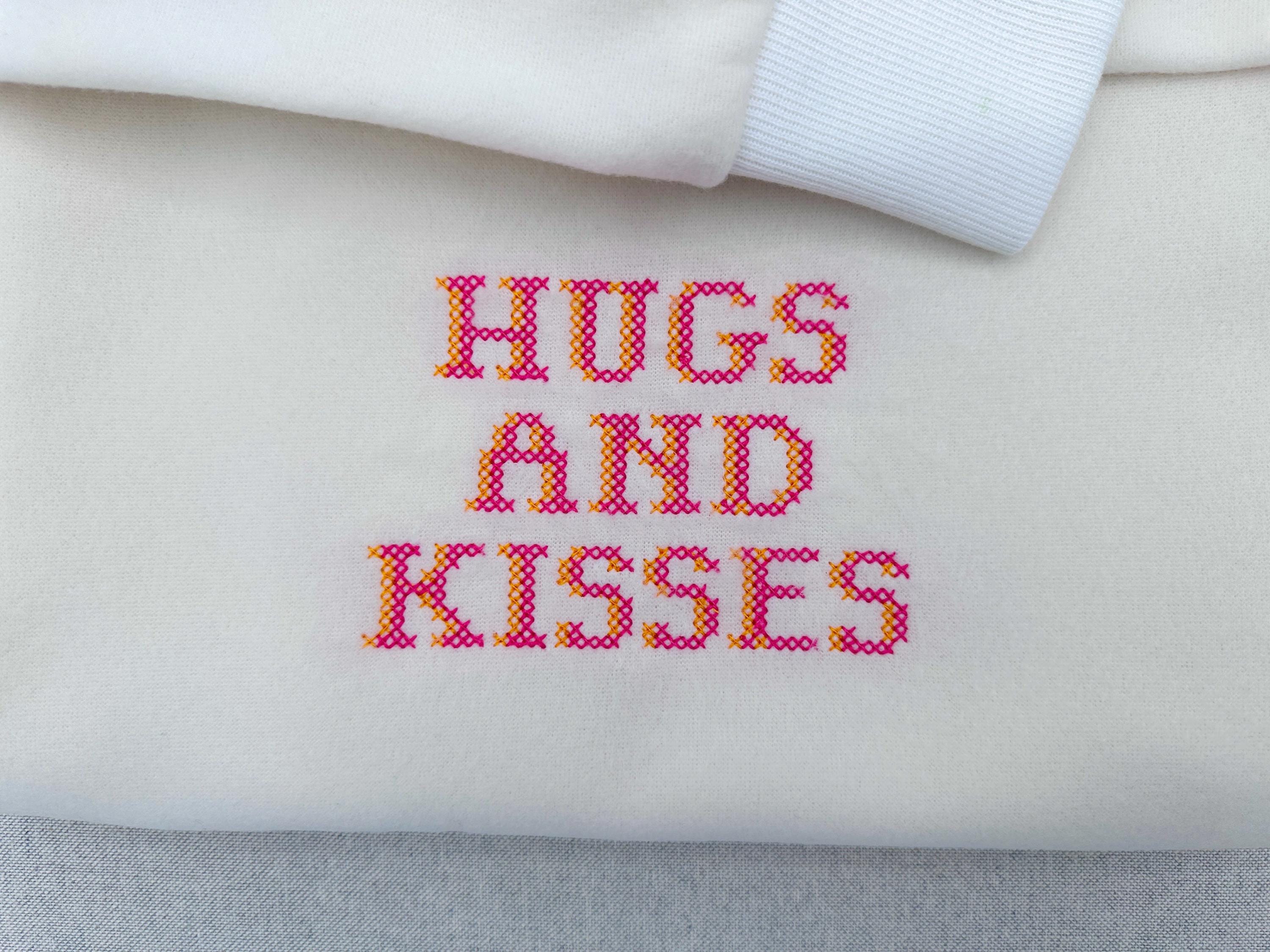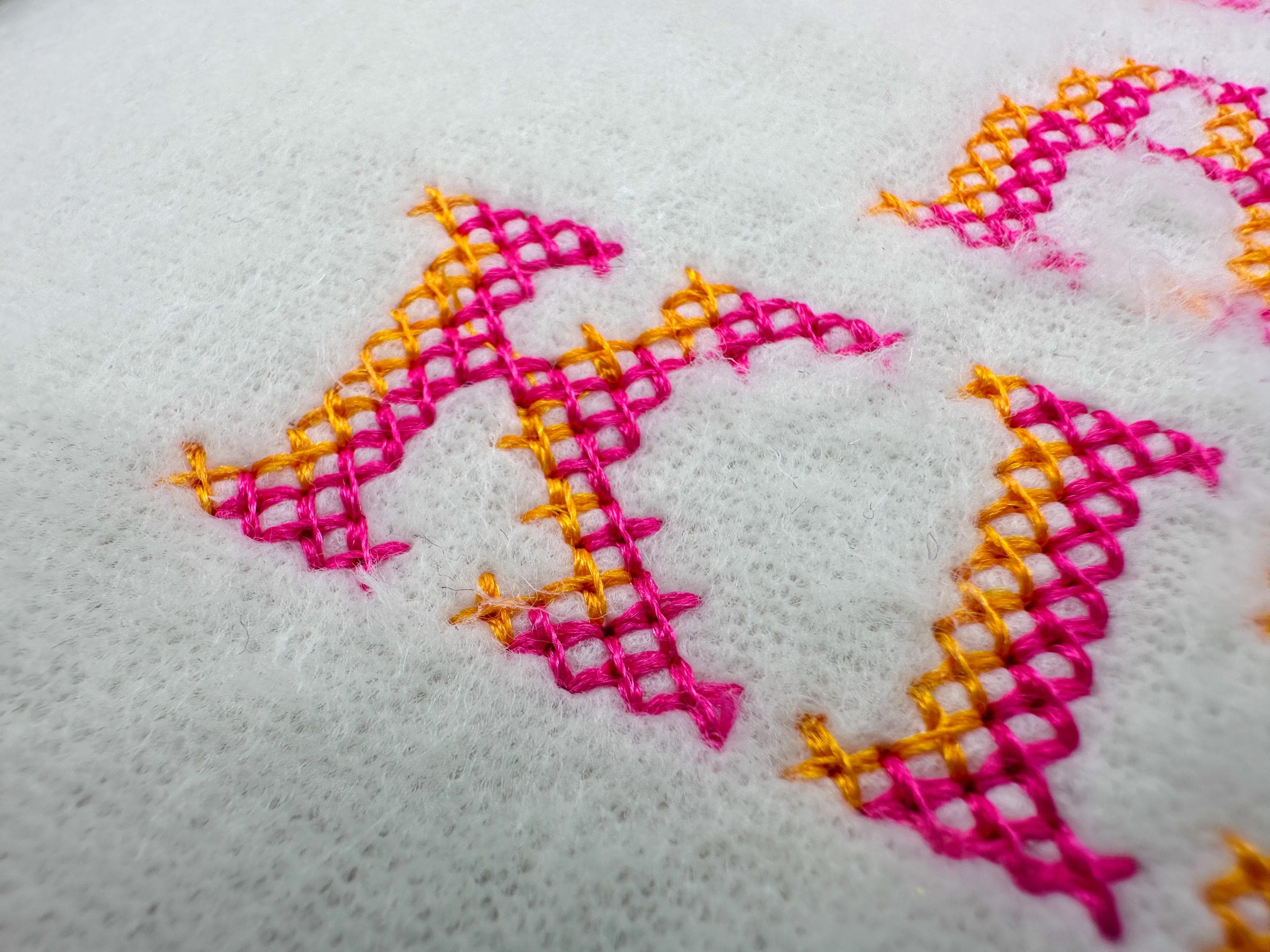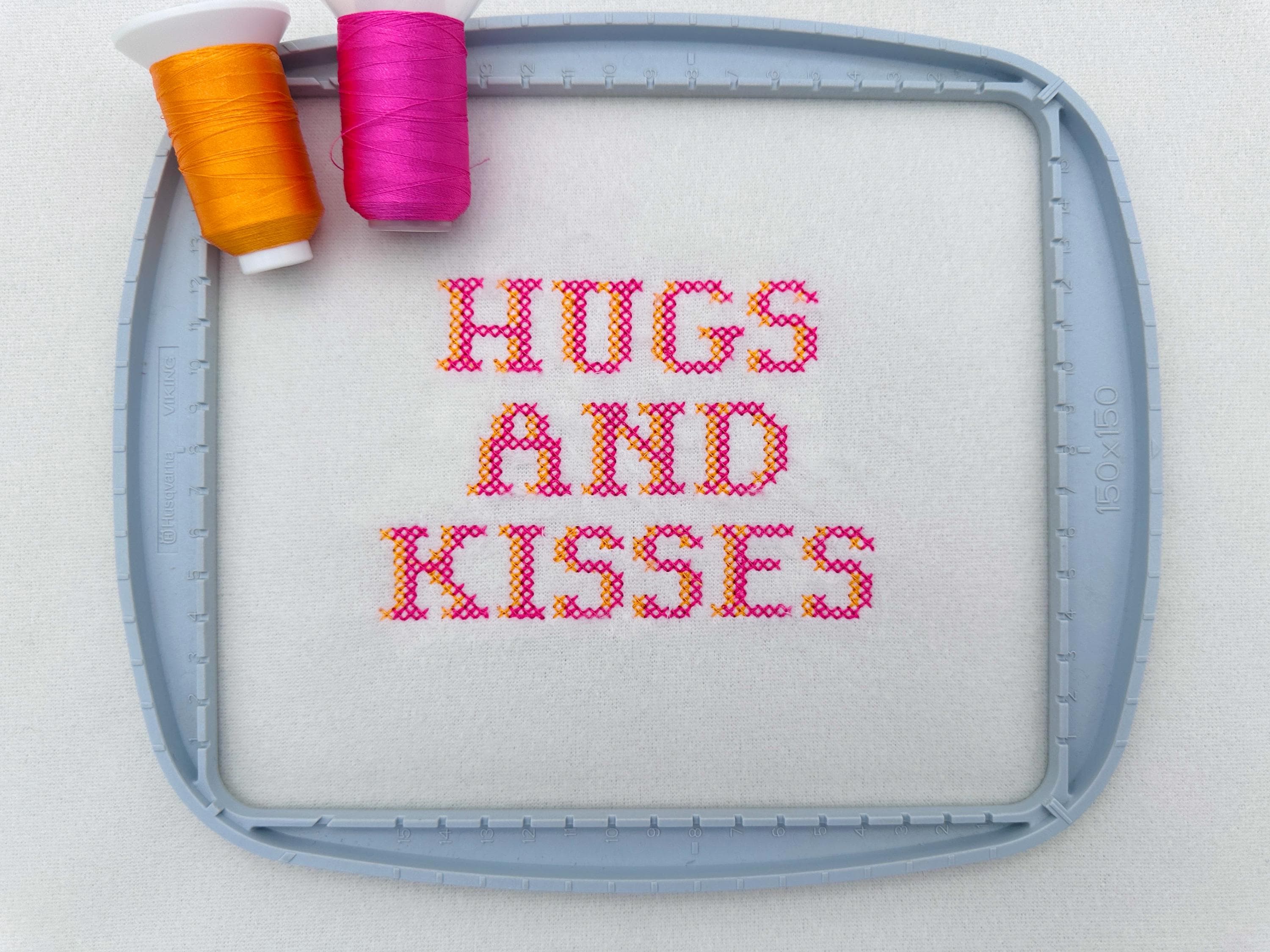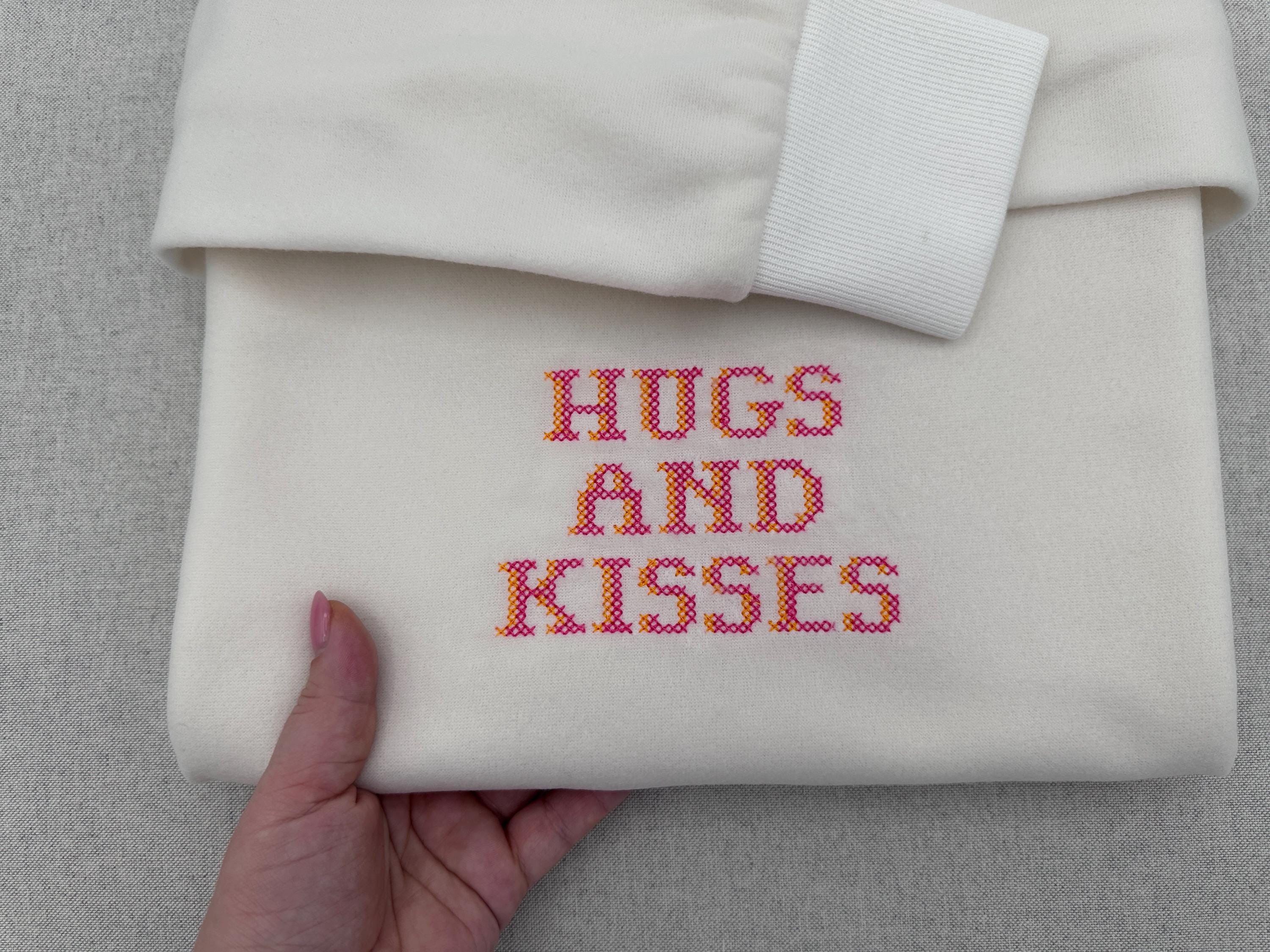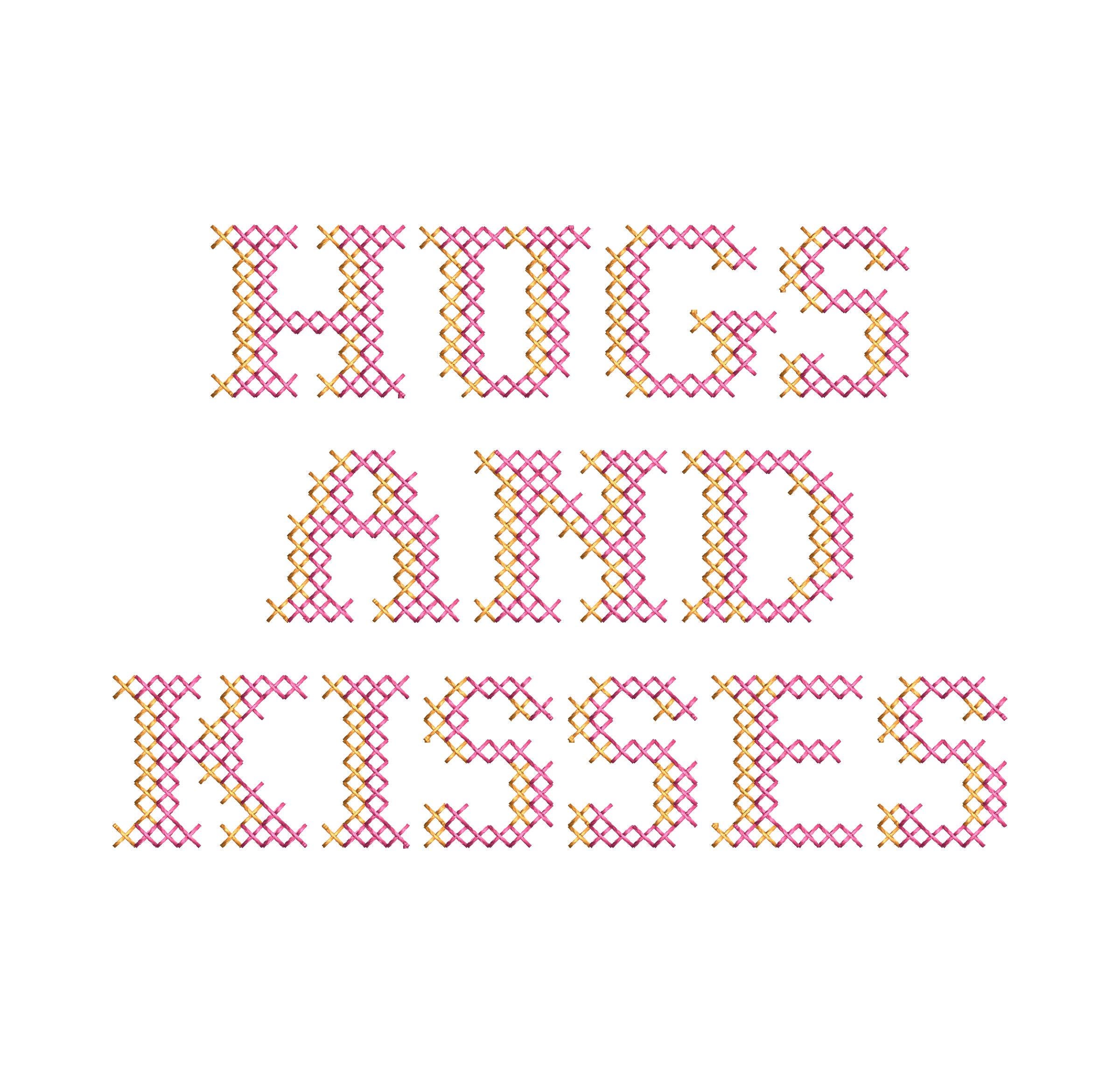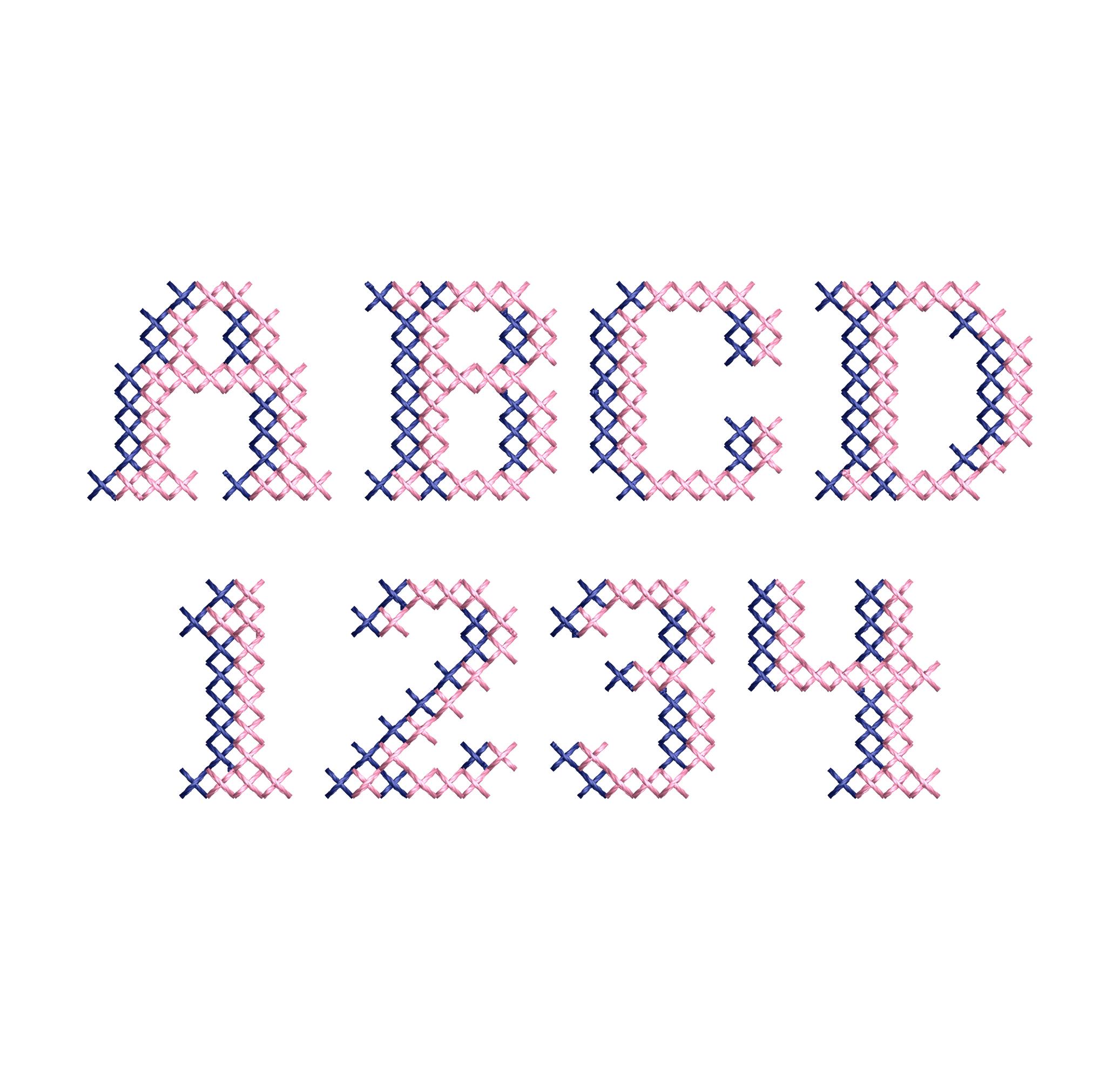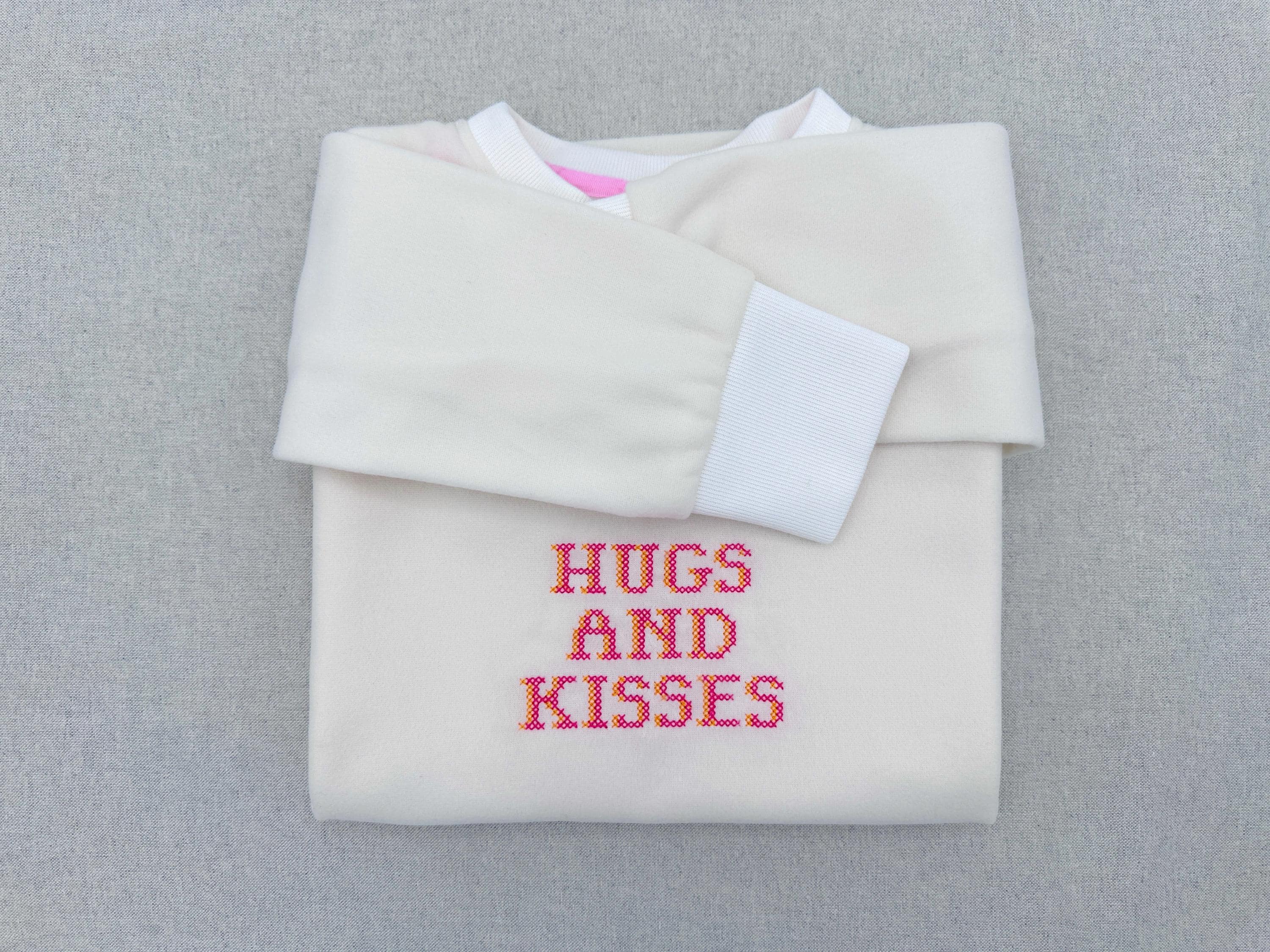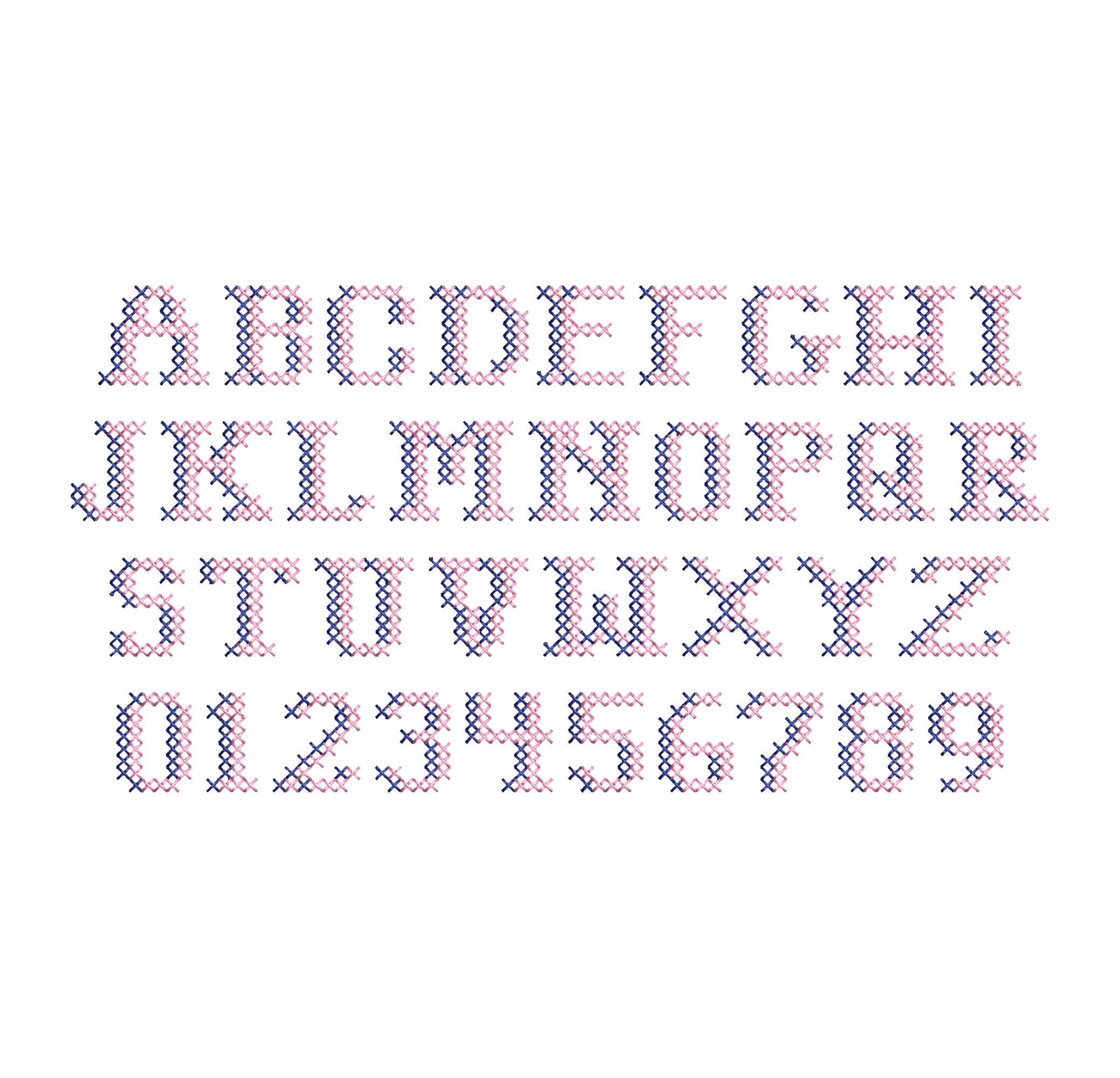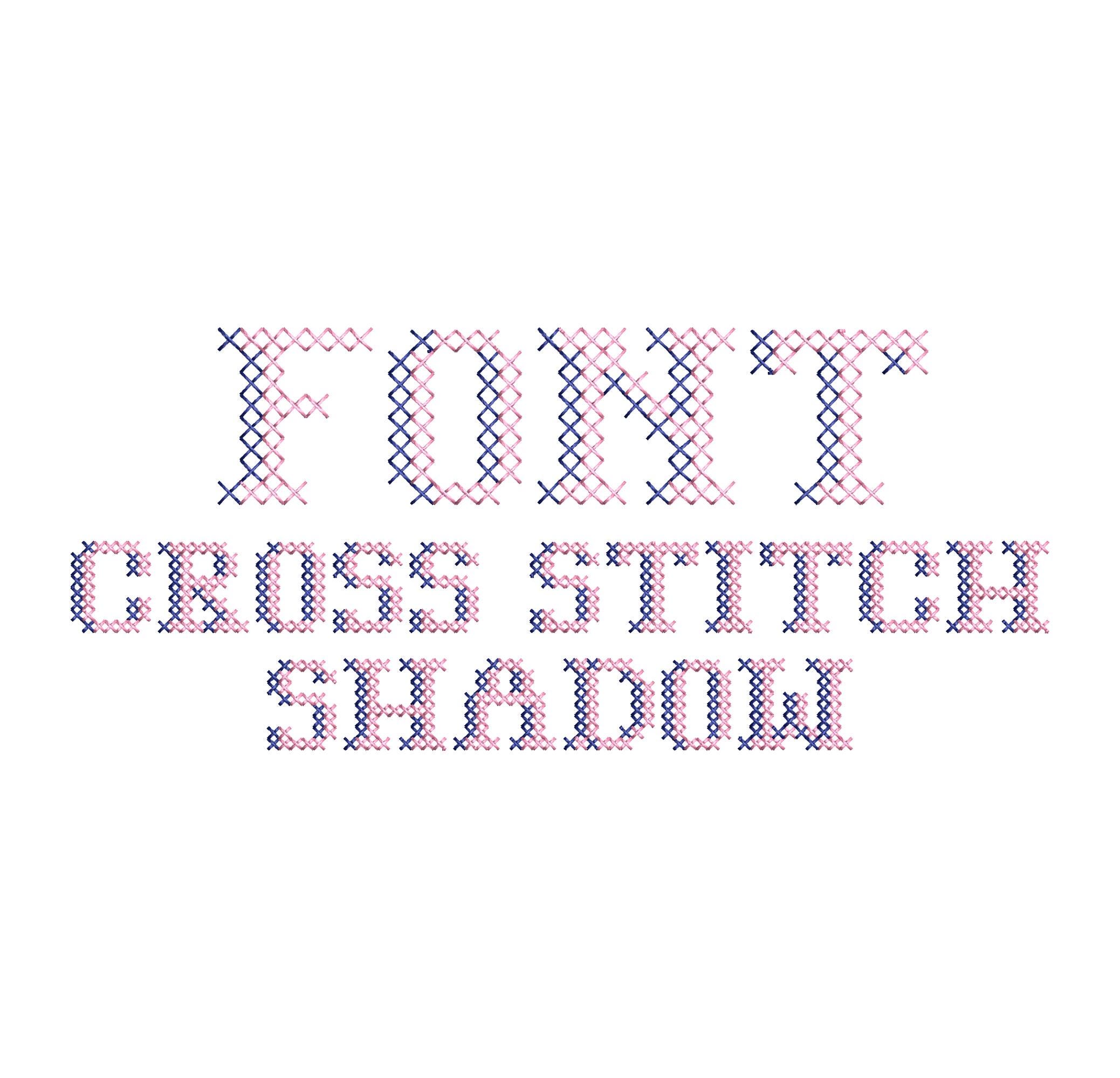
Cute Cross Stitch Shadow Font machine embroidery designs Alphabet Monogram letters numbers classy Block style mini sizes 0.6 up to 1.2 inch, and BX
Entire alphabet has uppercase and lowercase letters Aa-Zz, and numbers 0-9.